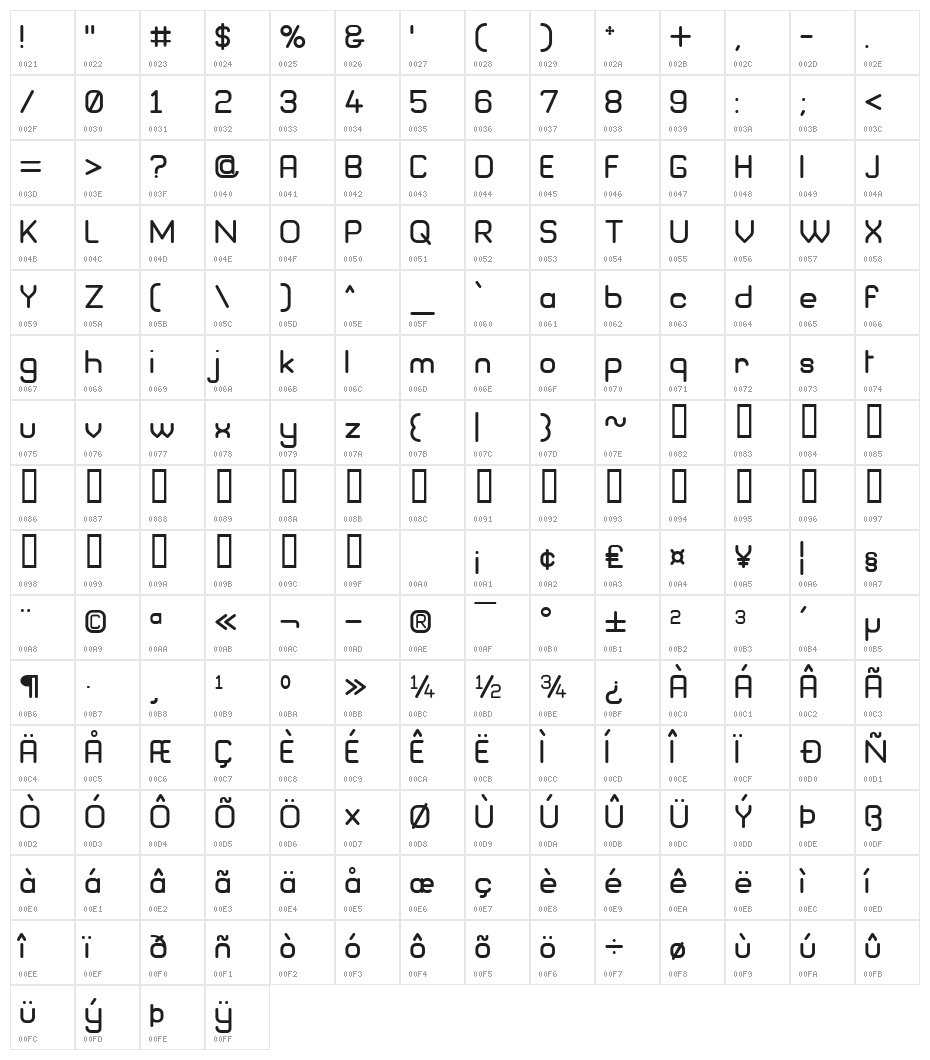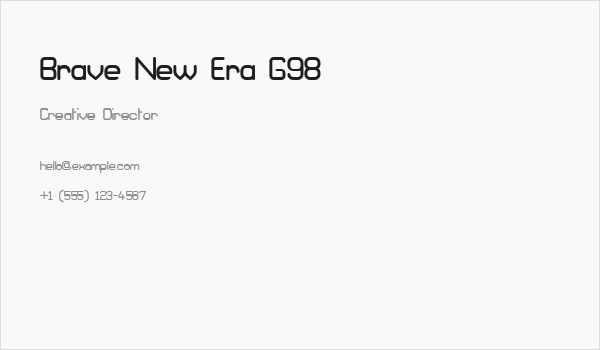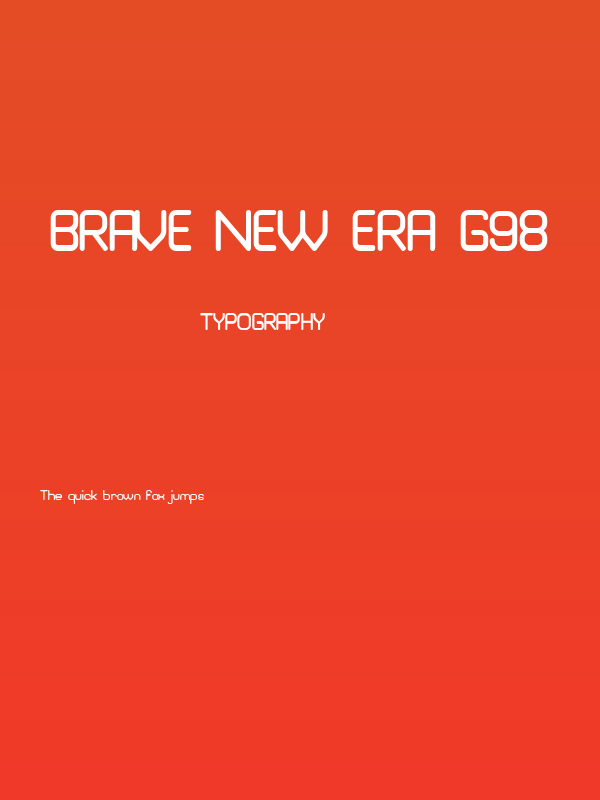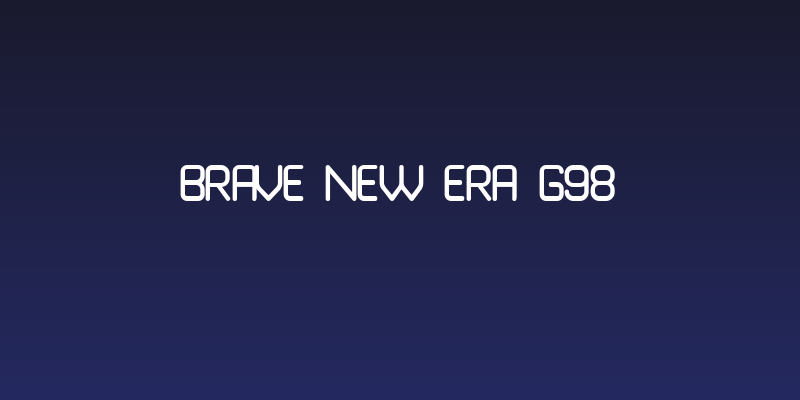
Brave New Era G98 Font
Brave New Era G98 Description
This font features a modern, geometric design with rounded edges, giving it a futuristic and sleek appearance. The characters are uniformly structured, maintaining a consistent height and width, which contributes to its clean and organized look. The uppercase and lowercase letters are distinct yet harmonious, with a uniform stroke width that adds to its readability. The numerals and special characters follow the same design principles, ensuring a cohesive visual style throughout. This font's unique style makes it suitable for projects that require a contemporary and innovative touch.
| Use Case | Headlines, Logos, Digital Interfaces |
| Proposed Projects | Ideal for tech branding, digital interfaces, modern advertising, and futuristic design projects. |